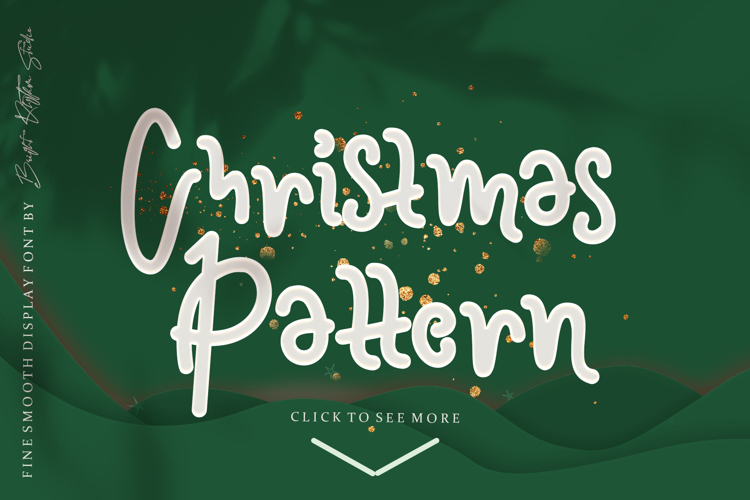
Christmas Pattern Font
About Christmas Pattern Font
Christmas Pattern is fine smooth display font by Bright Rhythm Studio.
It comes in TTF format with uppercase, lowercase, alternate swash and more.Christmas Pattern will look perfect for elegant logos, upscale packaging, wedding stationery, posters, quotes, short text, branding, web, graphic design, and any other projects requiring a handwritten and beautiful touch.